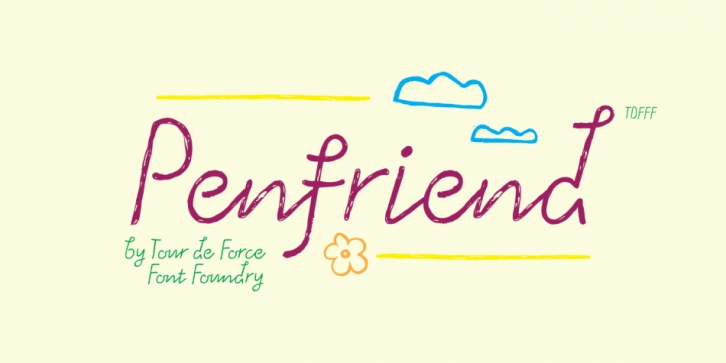
Designed by Dusan Jelesijevic, Penfriend is a script and kids font published by Tour de Force Font Foundry.
Penfriend is playful single weight script typeface. Joined, a bit bouncy and grungy, with picked set of dingbats.